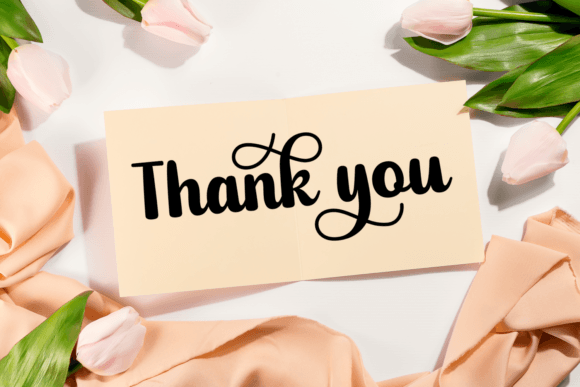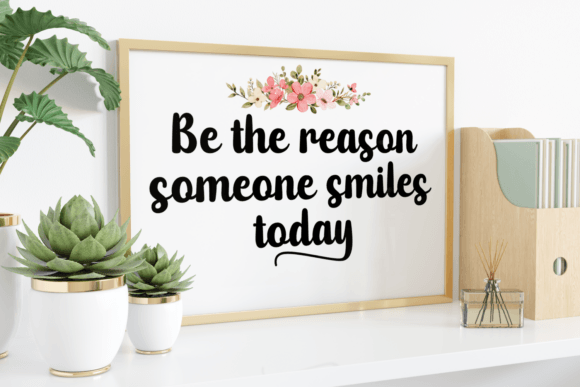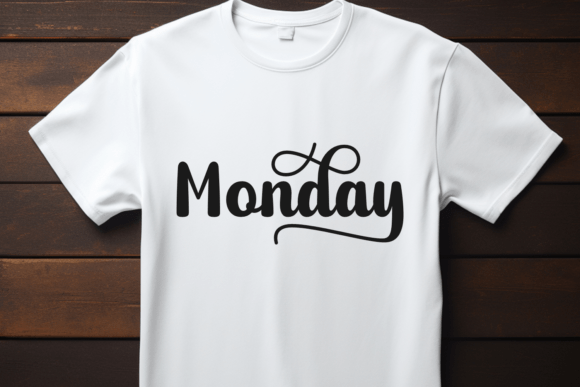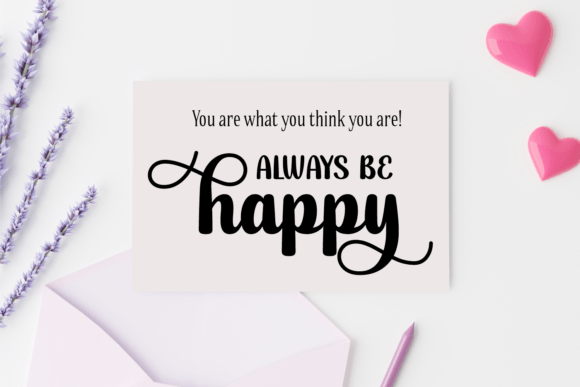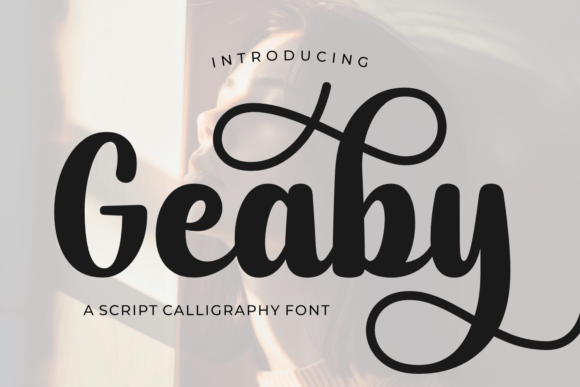
Introducing Geaby Font: Elevate Your Designs with Elegance and Playfulness
In the world of typography, fonts play a crucial role in conveying the tone and personality of a design. For creatives looking for a script font that exudes elegance, modernity, and a touch of playfulness, Geaby Font is an excellent choice. This bold script font is designed to make a statement, perfect for a variety of projects ranging from formal invitations to logos and other creative endeavors.
The Geaby Font Advantage
Geaby Font stands out with its unique blend of modern style and whimsical flair. Its elegant, flowing letters are not only visually appealing but also highly legible, making it an ideal font for designers and crafters who want to add a personal touch to their work. Whether you’re creating wedding invitations, crafting a brand identity, or working on a personal project, Geaby Font offers the versatility and charm you need.
Key Features of Geaby Font
- Bold and Elegant: Geaby Font features bold, flowing script letters that add an air of sophistication to any design.
- Modern yet Playful: The font strikes the perfect balance between modern style and playful charm, making it suitable for a wide range of projects.
- Highly Legible: Despite its bold nature, Geaby Font is easy to read, ensuring your message is communicated clearly.
- Versatile: From formal invitations and logos to creative projects, Geaby Font adapts seamlessly to various design needs.
Use Cases for Geaby Font
Geaby Font’s versatility makes it suitable for numerous applications. Here are some of the top use cases:
- Wedding and Event Invitations: Add a touch of elegance and romance to your wedding or event invitations with Geaby Font.
- Logo Design: Create a memorable brand identity with a logo that features Geaby Font’s unique and stylish script.
- Creative Projects: Whether you’re working on posters, flyers, or digital art, Geaby Font can add a creative and personal touch to your work.
- Marketing Materials: Stand out with promotional materials that use Geaby Font for headings and titles, adding a professional yet friendly tone.
Tips for Using Geaby Font Effectively
To make the most of Geaby Font, consider the following tips:
- Pair with Complementary Fonts: Use Geaby Font for headings and pair it with a clean, sans-serif font for body text to create visual contrast.
- Adjust Letter Spacing: For optimal readability, adjust the letter spacing according to your project’s requirements.
- Experiment with Colors: While Geaby Font looks stunning in black, don’t hesitate to experiment with colors that match your brand or project’s theme.
Geaby Font is a powerful tool for designers and crafters looking to infuse their projects with elegance, modernity, and a dash of playfulness. Its bold script letters, combined with high legibility and versatility, make it an excellent choice for a variety of creative endeavors. By incorporating Geaby Font into your design toolkit, you’ll be well-equipped to create stunning, professional-grade projects that capture attention and convey your unique message.